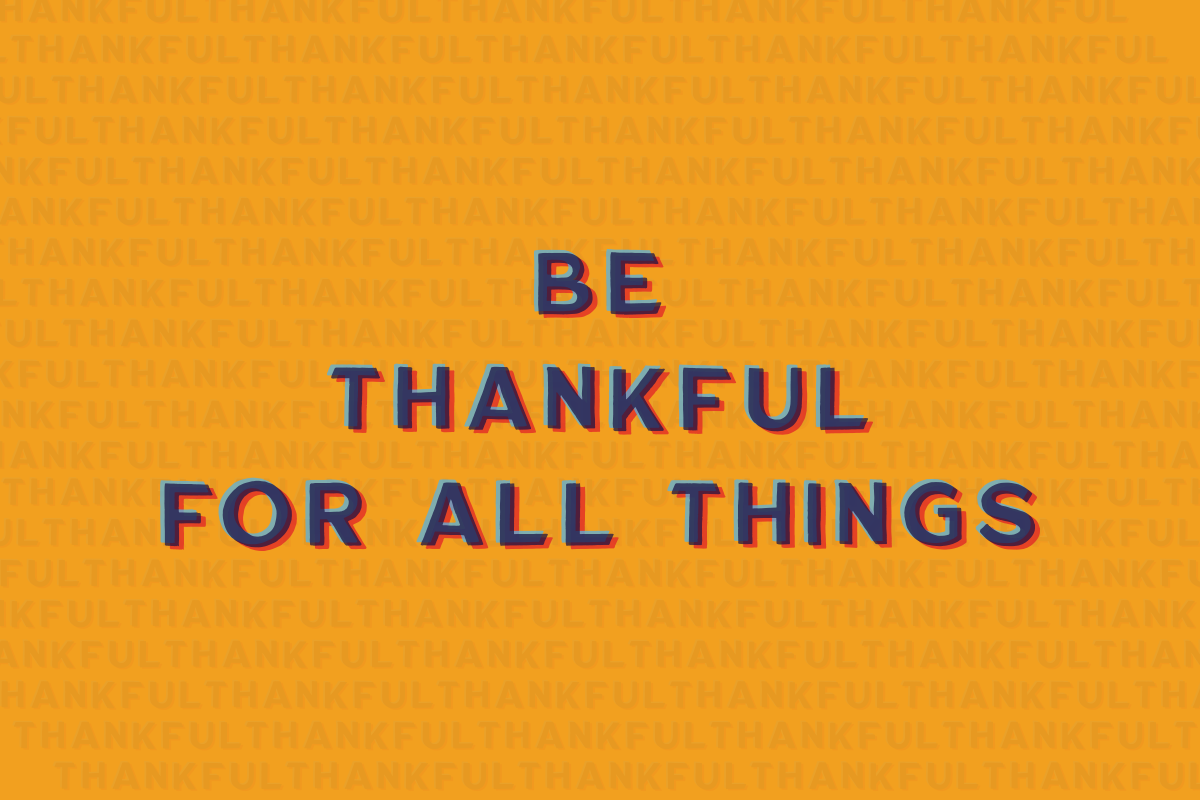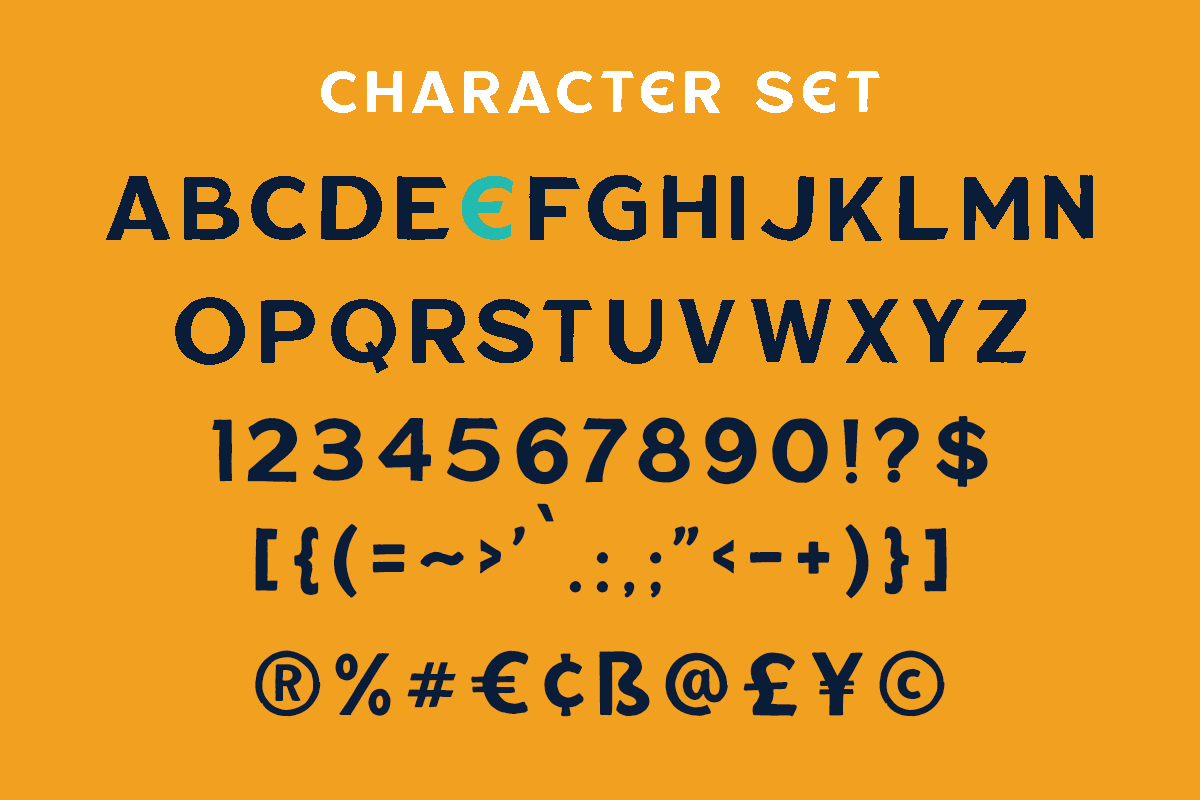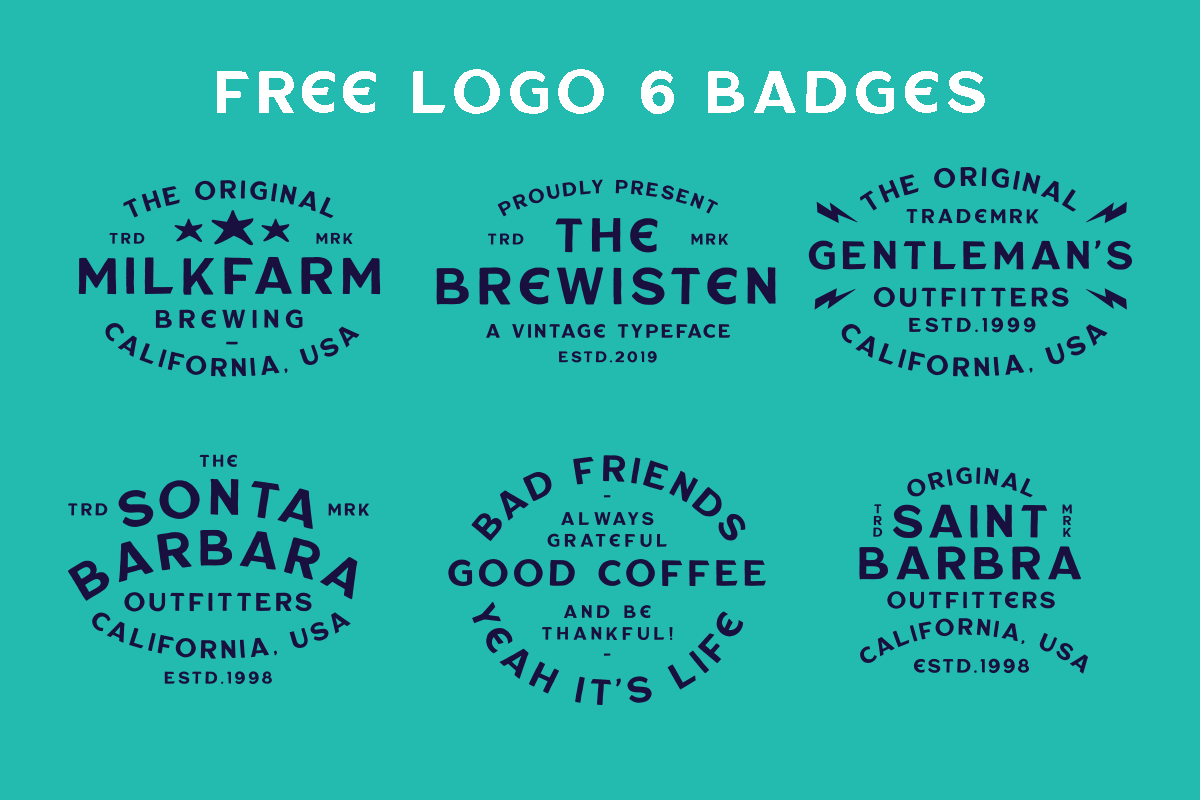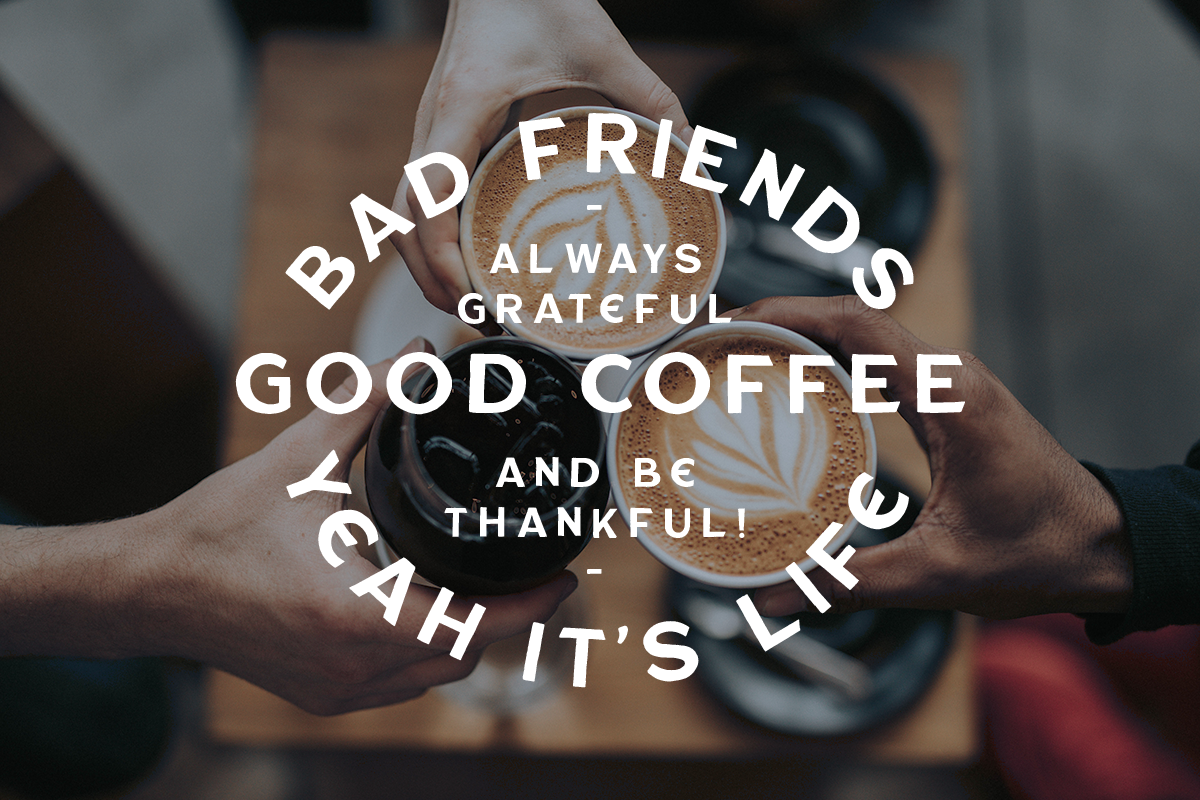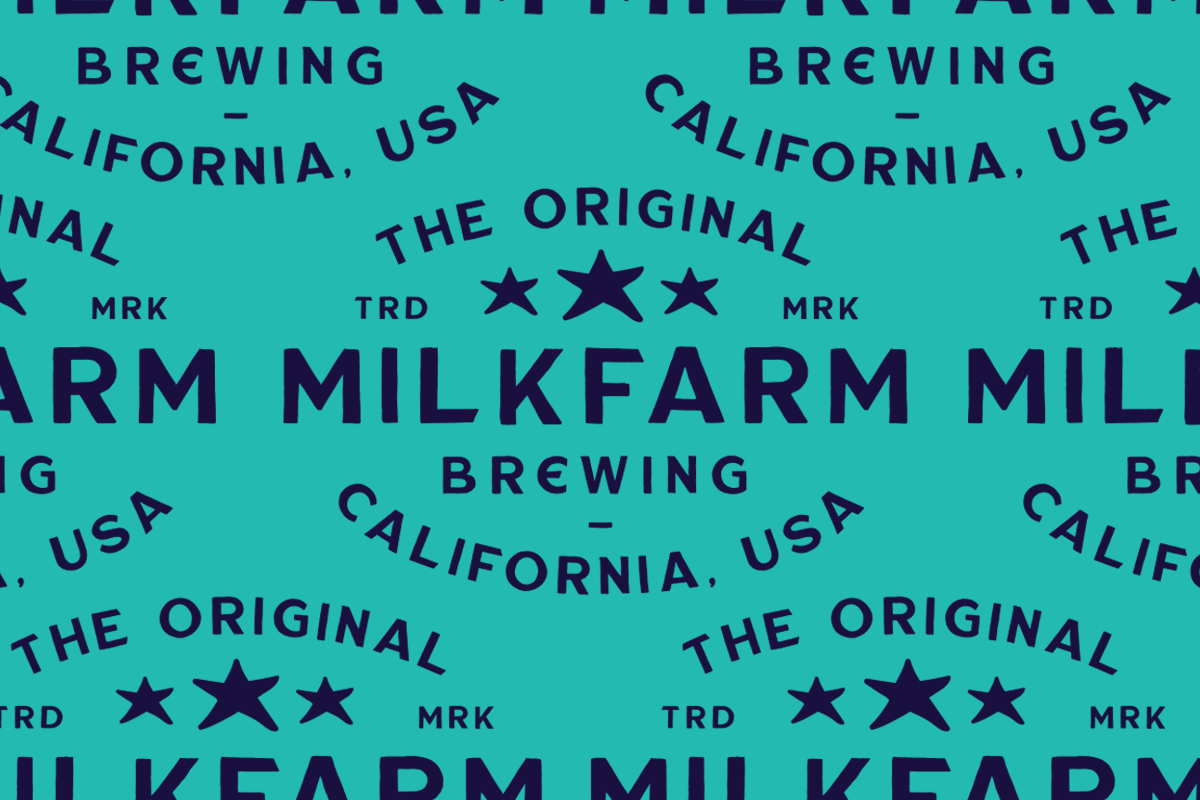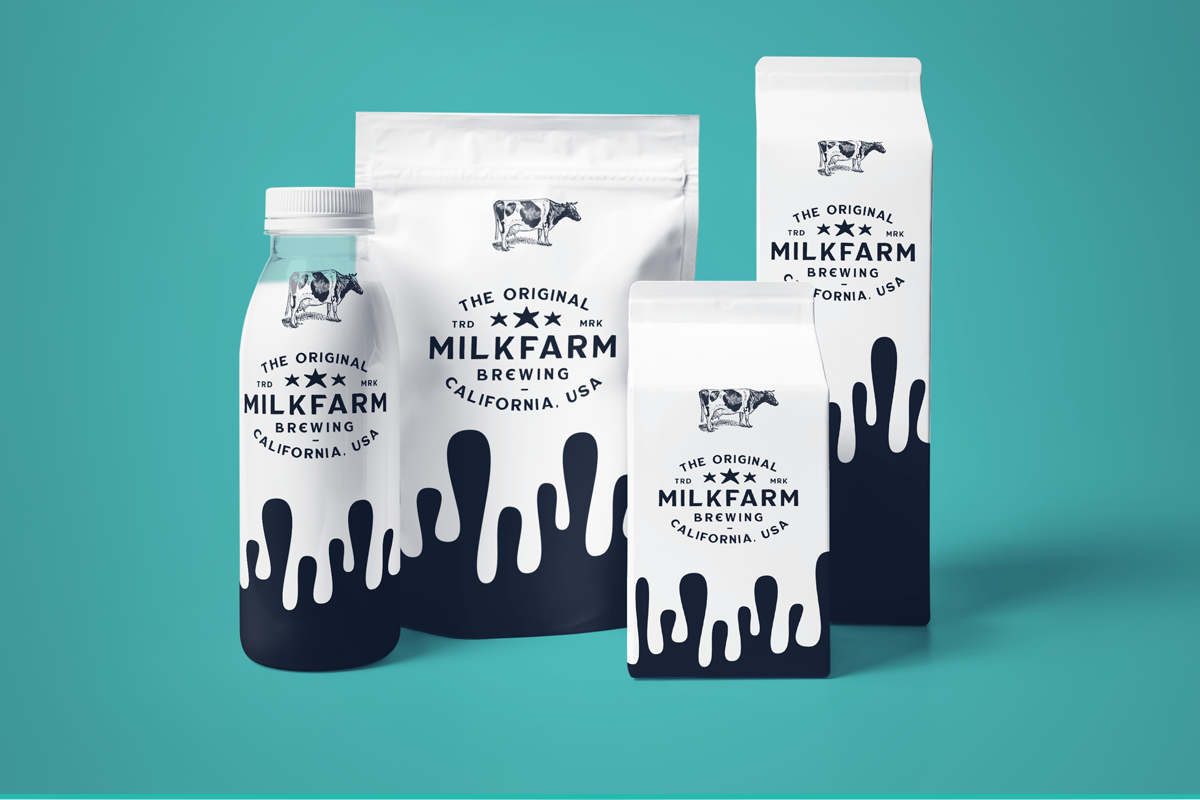
Brewisten Vintage Font + Extras
BREWISTEN SANS is a family sans serif font designed with carefully handcrafted. Also suitable for branding, T-shirt, Wedding Invitation, Classic Design, Logotype, and any project. With two style make you easier to design everythings.
Multilingual Support support many different languages 20+ .
- Brewisten Regular
- Brewisten Slant Regular
Brewisten Vintage Font + Extras by Martype fits naturally into Branding, posters, packaging, typography.